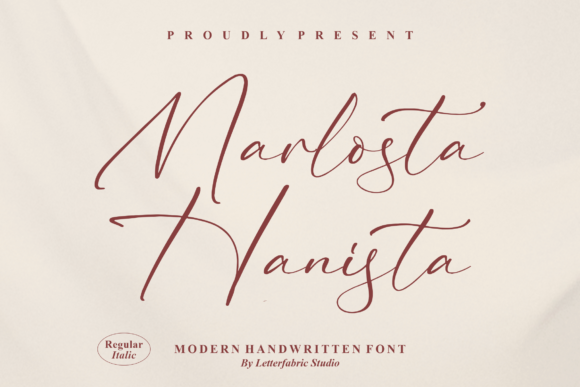
Dive into the world of Marlosta Hanista, an enchanting script font that will captivate your imagination. Designed by the skilled hands of Letterfabric, this font bursts with elegance and charm, making it the perfect choice for any creative project that yearns for a touch of sophistication.
Unleash your inner artist as you explore the endless possibilities of Marlosta Hanista. Let its flowing curves dance across your logos, branding designs, and photography projects, adding an irresistible personal touch that will turn heads. Embellish your labels with a touch of whimsy, transform your watermarks into works of art, and enchant all your special events with this enchanting script.
With Marlosta Hanista, the possibilities are as limitless as your imagination. Its PUA encoding grants you effortless access to a treasure trove of glyphs and swashes, empowering you to add intricate details and alluring flourishes to your designs.
Step into the realm of Marlosta Hanista and let your creativity soar. Its graceful lines and enchanting charm will elevate your projects to new heights, leaving an enduring impression that will captivate all who behold it.